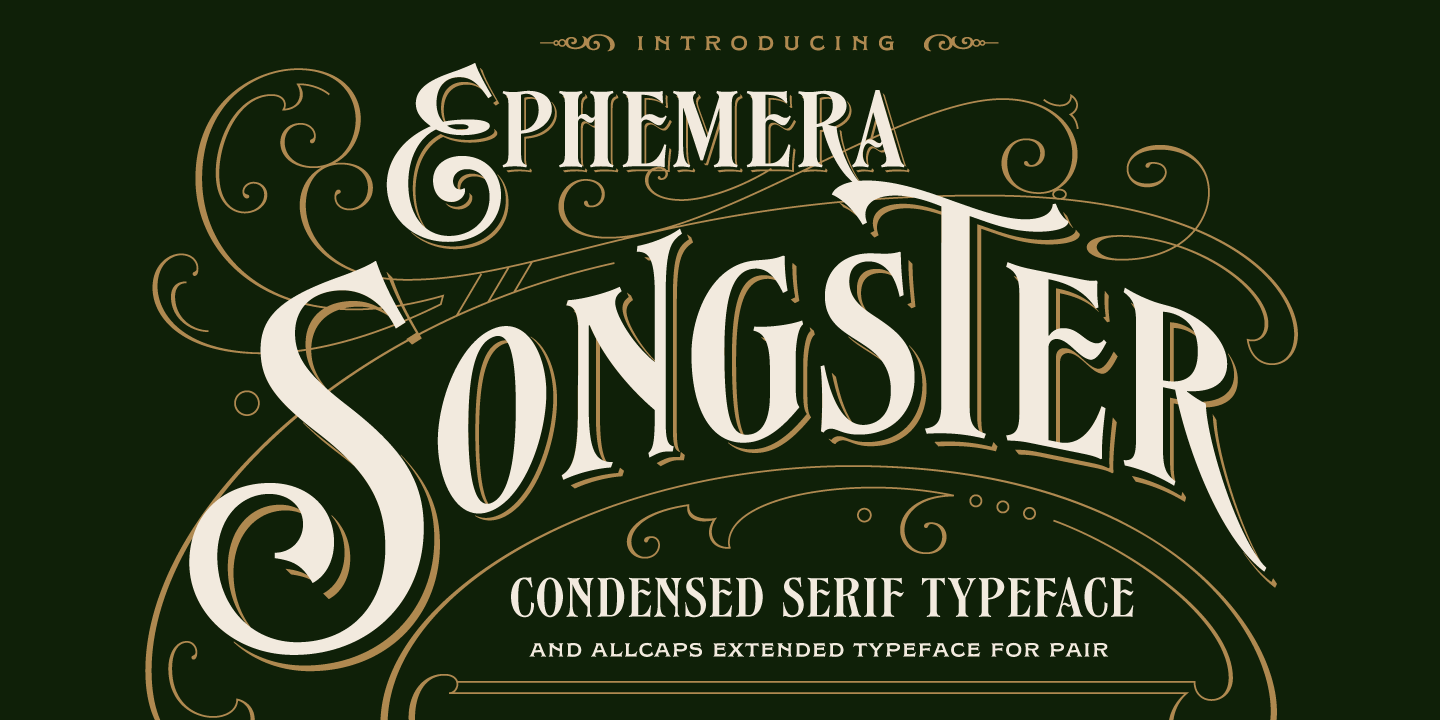
EFCO Songster Free Download
EFCO Songster Font Free Download
EFCO Songster Font is perfect for music album covers, concert poster designs, recording studio branding, music festival graphics, songwriter portfolio layouts, radio station identities, musical instrument packaging, karaoke bar signage, music education materials, and entertainment venue branding that requires rhythmic energy and melodic visual harmony.
This font is exciting because it beautifully captures the flowing rhythm and melodic spirit of musical expression with letterforms that dance across the page like notes on a staff, creating visual harmony that resonates with both musicians and music lovers. EFCO Songster Font features rhythmic proportions and lyrical character details that embody the emotional power and creative energy of songwriting and musical performance.
EFCO Songster Font family includes Regular, Bold, Light, Melody, Harmony, Rhythm, Performance, and Acoustic versions, plus musical symbols, note ornaments, staff elements, and melodic flourishes that enhance the authentic musical aesthetic and provide comprehensive design solutions for music industry and entertainment applications.
For musical and entertainment design projects, EFCO Songster Font Free Download delivers exceptional artistic character and melodic appeal. The font's rhythmic letterforms and musical spirit make it perfect for record labels, music venues, and entertainment brands seeking to communicate creativity, passion, and artistic excellence. Its melodic design appeals to musicians and music enthusiasts who appreciate authentic artistic expression. The character set includes musical notation symbols and rhythmic alternates that reflect industry music standards. Professional designers appreciate its ability to convey both artistic passion and professional quality while maintaining excellent readability across album artwork, concert promotions, and music industry marketing materials, making it essential for brands that want to capture the emotional power of music and communicate the creative energy that drives musical innovation and artistic expression.